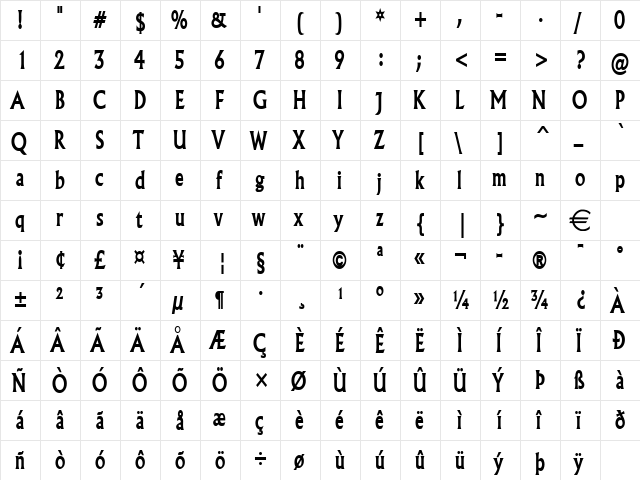
FlairThin Bold
Design Context for FlairThin Typeface
FlairThin takes a measured approach to typography — its balanced proportions and neutral character make it a reliable workhorse for both digital and print work. Its bold stroke weight gives it real presence on the page.